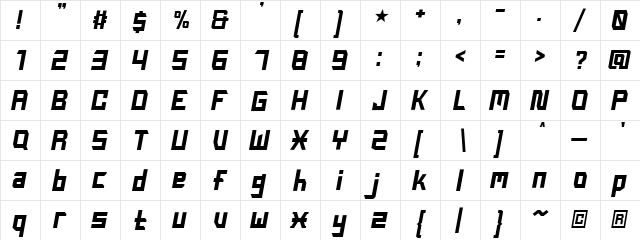
Peradaban Italic
Design Context for Peradaban Typeface
Peradaban offers clean, dependable letterforms without strong stylistic allegiance, making it a practical choice for designers who need flexibility. The slanted form adds forward momentum and visual energy.
Pro Tip: Use Peradaban for emphasis, pull quotes, and subheadings where its slanted energy can add rhythm to the layout.